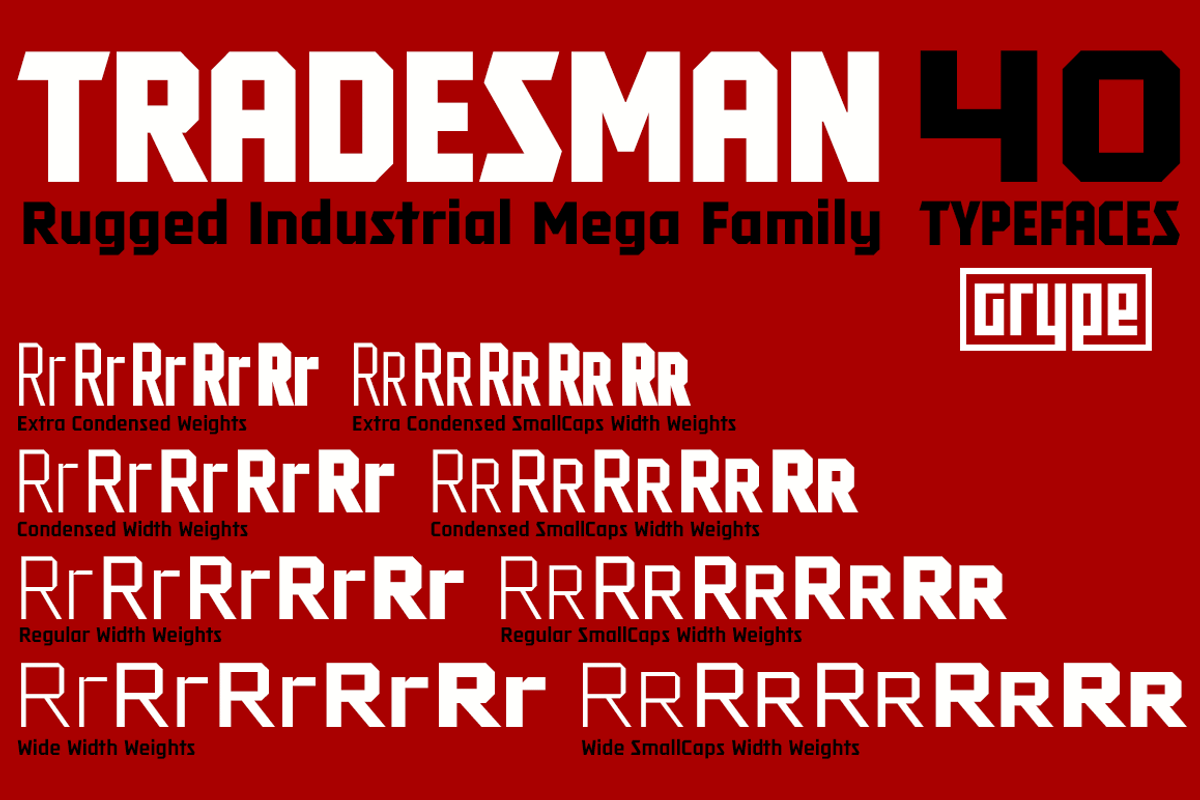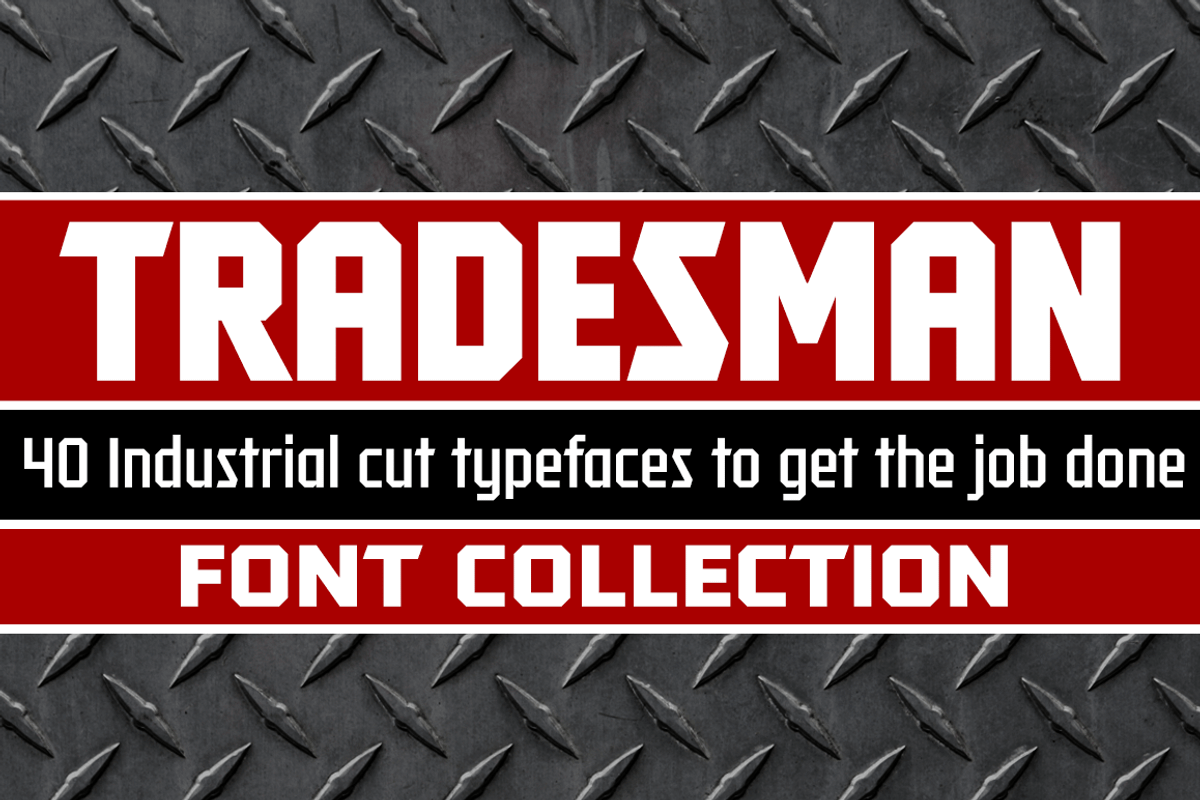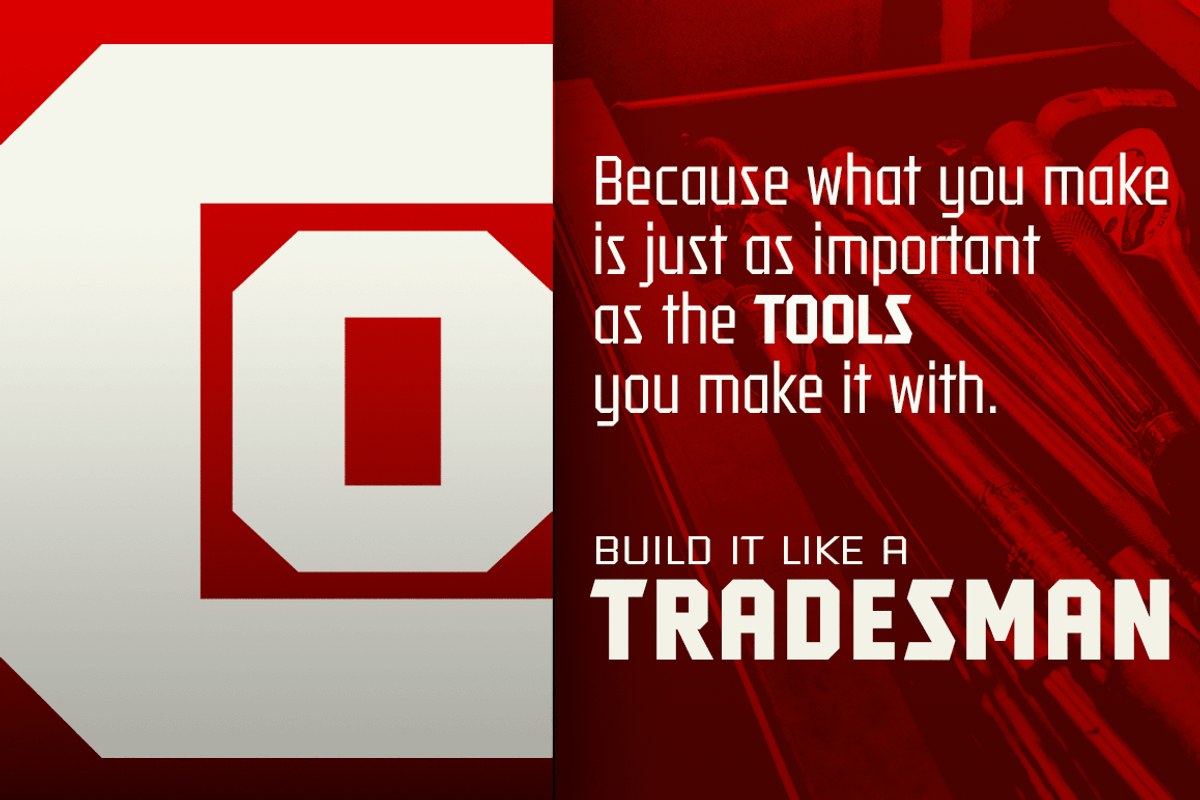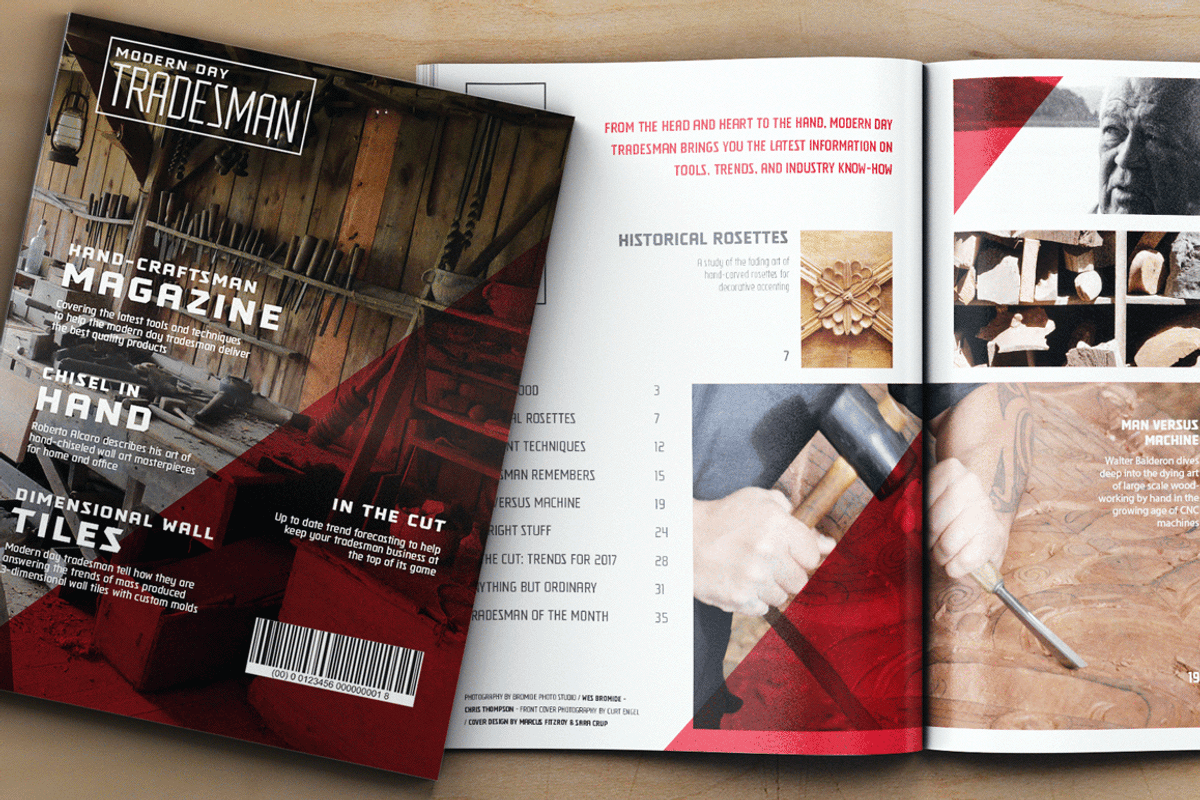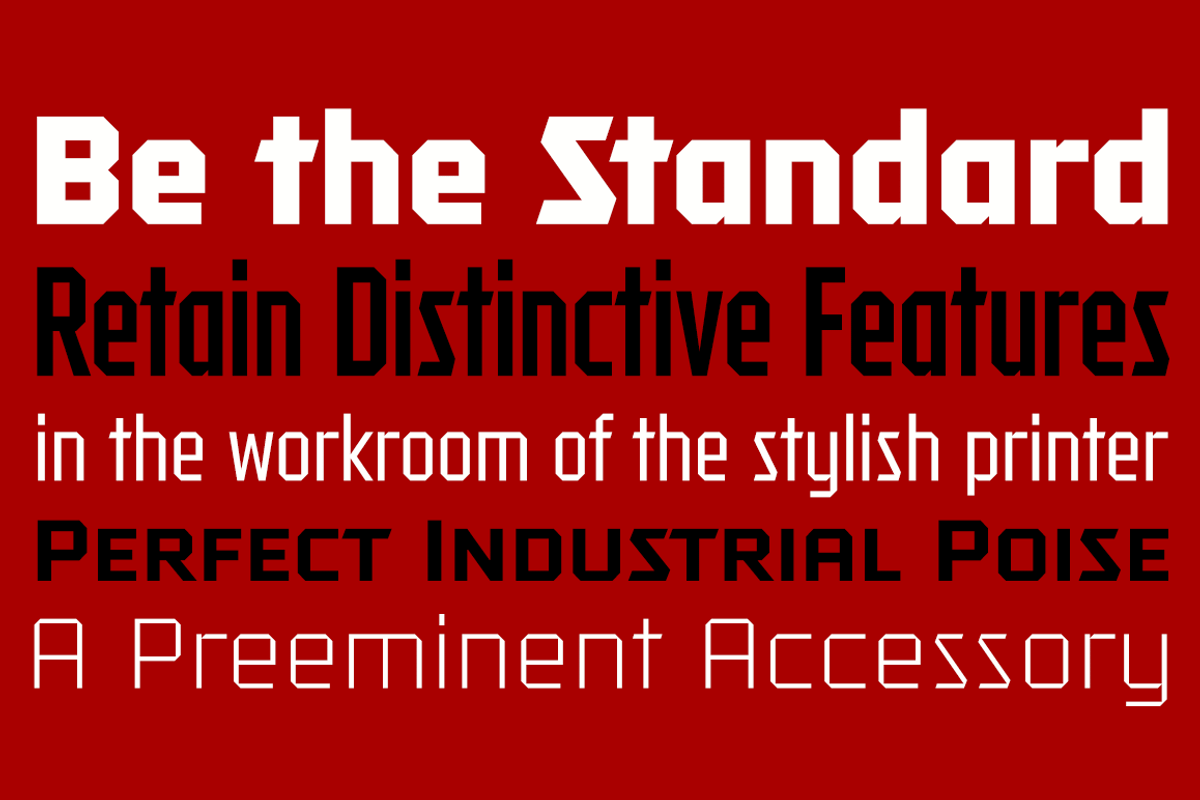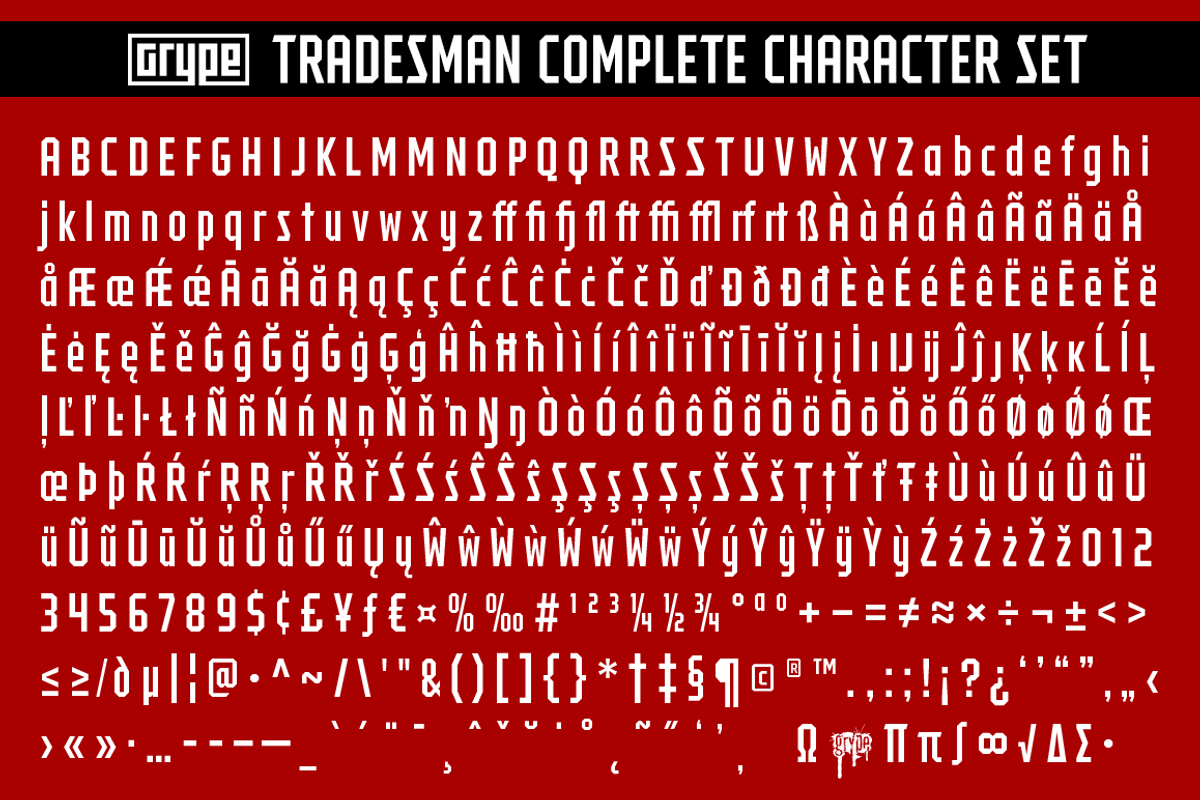
Tradesman Collection
The Backstory Scoop
Rough-hewn industrial geometric typefaces have been used and admired from early wood types through the digital age of Machine and beyond, but they have lacked an expansive enough family to become a true workhorse. The Tradesman family finds its origin of inspiration in the Craftsman tool company logo, and from there expands to type megafamily.
Tradesman celebrates the angular octagonal forms of industrial lettering, transcending its brand inspired origin to give birth to a font family that pulls on modern and historical styles. It inherited its reliably tough tone from the all capitals lettering that inspired it, and goes on to include a lowercase, small caps style, and a comprehensive range of widths and weights, creating a straightforward, uncompromising collection of typefaces that lend a solid foundation and a broad range of expression for designers.
- 400 glyphs per style - including Capitals, Lowercase, Numerals, Punctuation and an extensive character set that covers multilingual support of latin based languages. (see the 6th graphic for a preview of the characters included)
- 40 fonts in 4 width subfamilies with 4 SmallCaps families: Extra Condensed, Standard & Wide.
- 5 weights per subfamily: Light, Book, Regular, Bold, & Black.
- You're in need of rugged industrial font family with a big range of weights and widths
- You're love that Craftsman letter styling, and want to design anything within that genre
- You're looking for an alternative to ITC Machine with a more versatile range of styles.
- You're looking for a sweet steampunk reminiscent typestyle free of over-ornamentation.